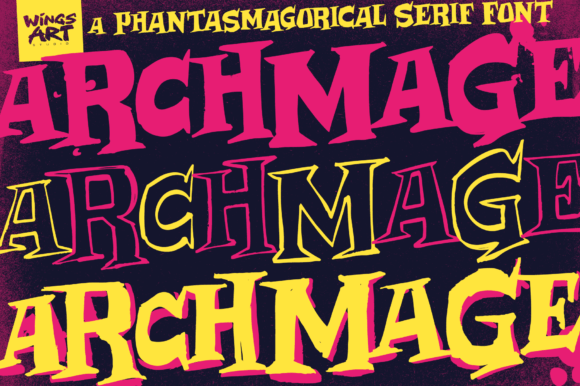
Unleash Your Creativity with Archmage Font: A Hand-Drawn Masterpiece
Have you ever been in the middle of a design project, pouring your heart and soul into it, only to hit a roadblock when it comes to finding the perfect font? I certainly have! It was during one of those moments, working on a fantasy novel cover, that I stumbled upon the Archmage Font. This hand-drawn font, with its rich literary influences from the worlds of fantasy, folklore, and horror, instantly captivated me. Its unique, inky design seemed to bring my phantasmagorical tale to life.
What Makes Archmage Font So Special?
Archmage Font is not just any ordinary font. It combines the best of fantasy, folklore, and horror to produce a versatile and layered font system. It comes in five unique styles, each with a complete set of alternatives that you can use alone or combine for dramatic effect. This all-caps design offers a complete and unique set of uppercase and lowercase characters, along with numerals, punctuation, symbols, and language support. Plus, each of the five styles comes with a set of alternatives, ensuring you never have to repeat characters.
Here’s what I love about Archmage Font:
- ✨ Unique and Versatile: The five styles and numerous alternatives offer endless possibilities for creative expression.
- ✅ Ease of Use: Despite its complexity, Archmage Font is surprisingly easy to use, even for those who are new to working with OpenType features and glyphs.
- 🔥 High-Quality Design: The hand-drawn, inky design gives any project a distinctive, high-quality look that’s sure to stand out.
- 📚 Literary Flair: The font’s influences from fantasy, folklore, and horror make it perfect for projects in these genres.
And here are a few small quirks to keep in mind:
- 🤔 Learning Curve: While generally easy to use, mastering the full range of OpenType features and glyphs may take some time.
The Backstory Behind Archmage Font
The creator of Archmage Font, inspired by the mystical worlds of fantasy, folklore, and horror, aimed to craft a font that could visually represent these realms. With a passion for literature and design, they poured their heart into developing a unique, hand-drawn font system that would bring stories to life.
| How many styles does Archmage Font come in? | Archmage Font comes in five unique styles, each with a complete set of alternatives. |